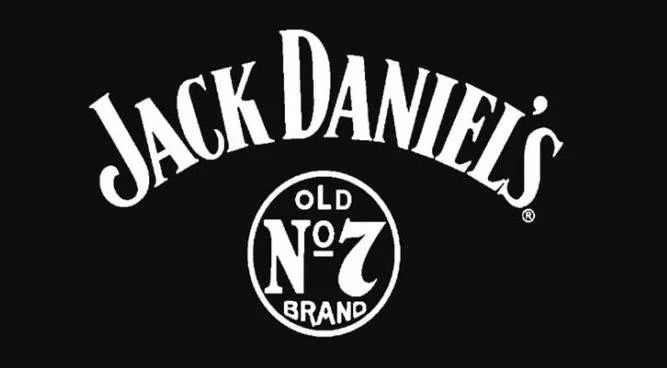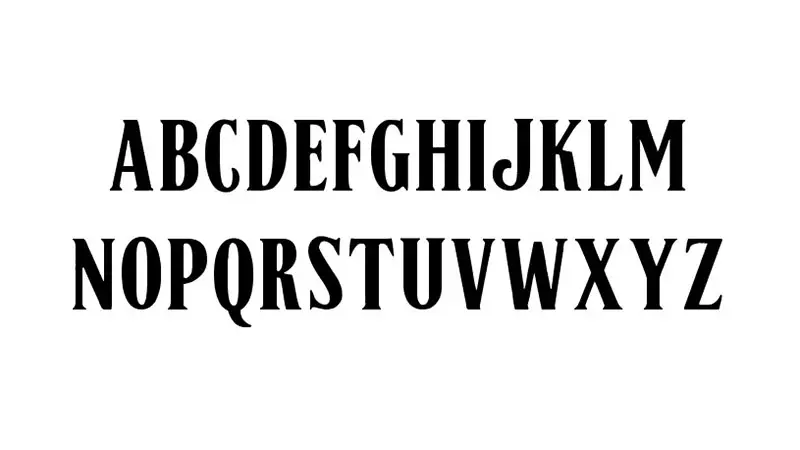
Jack Daniels Font
Jack Daniels Font is a great typeface, this Serif font family supports many international languages. This font family is being widely used in many designs. And this typeface is too much helpful for satisfying the client’s requirements. With Jack Daniels Font, your designs are more classy and elegant.
This smart font family contains 400 Glyph (basic Latin & supplements). The texture of this modern typeface is bold and direction Only strongly left to right glyphs. The cursive and serif corners have increased his beauty.
About Jack Daniels font! Now, Jack Daniels is a top-selling American whiskey all over the world. This is a famous American whiskey with bottles and the black label is the identity of this brand. In April 2017 Jack Daniels has sold over 12.5 million cases and at the end of 2017, this product output is near 16.1 million cases. Therefore, most whiskey lovers know about this.
The top and center is the Jasper font, based on the familiar Jack Daniel’s logo lettering (and bearing Jack Daniel’s given the first name). The real visual centerpiece, though, is the refined yet approachable Lynchburg Script, based on the Tennessee lettering in the label.
Jack Daniels Font is a Serif Fonts font that brings a professional and versatile look to your projects. Jack Daniels Font is a great typeface, this Serif font family supports many international languages.